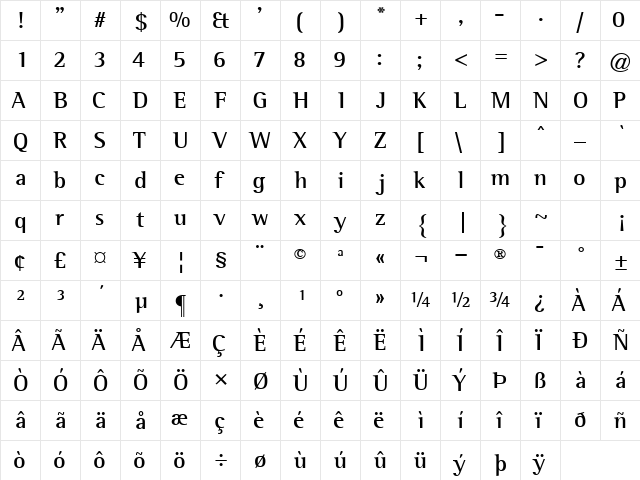
LibreSemiSerifSSK Bold
Design Context for LibreSemiSerifSSK Typeface
LibreSemiSerifSSK carries the refined structure of traditional serif typography, with bracketed terminals and considered proportions that communicate credibility and craft. The heavy weight commands attention and anchors typographic hierarchies.
Pro Tip: Use LibreSemiSerifSSK for editorial body copy and considered headline work. Pair with a neutral sans for UI elements or captions to create a classic hierarchy.